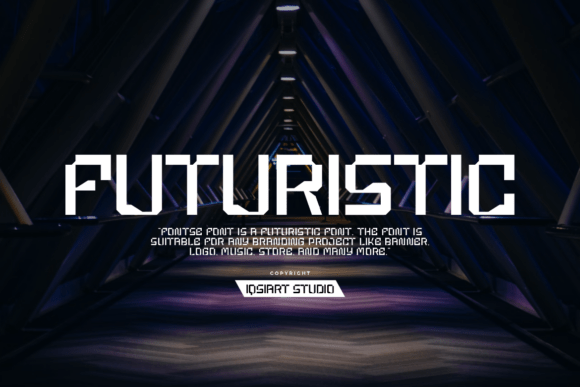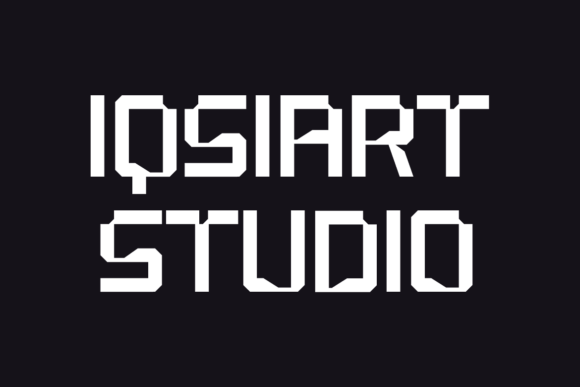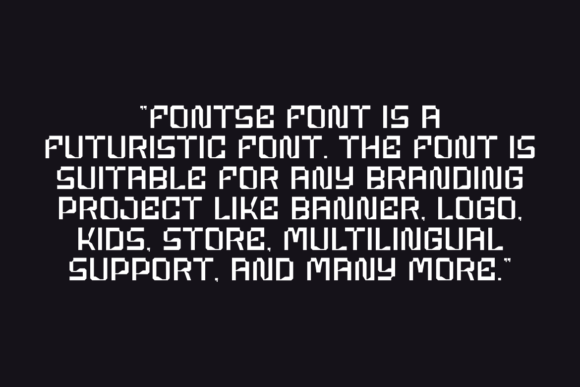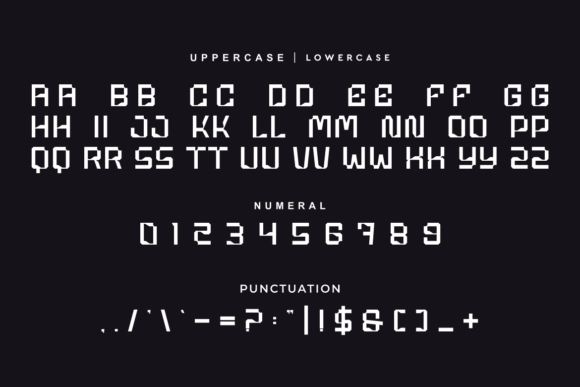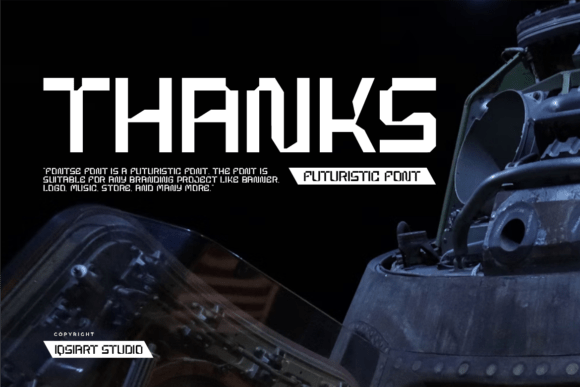
The Quirky Charm of Fontse Font: A Designer’s Delight
I still remember the design project that led me to discover Fontse Font. I was working on a whimsical branding campaign for a new coffee shop, and I was struggling to find the perfect font to capture their playful yet sophisticated vibe. That’s when I stumbled upon Fontse Font, and it instantly became my go-to choice. Its unique blend of quirky charm and elegance won me over, and I’ve been hooked ever since.
An Honest Review of Fontse Font
What I Love About Fontse Font ✨
- ✅ Unique and eye-catching design that’s perfect for making a statement
- ✅ Highly versatile and adaptable to various design contexts
- ✅ Beautifully crafted with attention to detail and a touch of whimsy
- ✅ Supports a wide range of languages and special characters
- ⚠️ Some users may find the font a bit too ornate or over-the-top for certain projects
- ⚠️ Limited availability of condensed or italic versions, which may limit its use in certain design scenarios
The Designer Inspiration Behind Fontse Font
Fontse Font was created by a talented designer who’s passionate about crafting unique and eye-catching typography. Inspired by a mix of traditional and modern design elements, Fontse Font is the result of hours of careful craftsmanship and attention to detail. Whether used for branding, packaging, or digital design, Fontse Font is sure to make a lasting impression.
| Font Name | Fontse Font Font |
| Author | IqsiartStudio |
| What makes Fontse Font so unique? | Fontse Font’s unique blend of quirky charm and elegance sets it apart from other fonts. |
| Is Fontse Font suitable for body text? | While Fontse Font is primarily designed for display purposes, it can be used for body text in certain design scenarios. However, it’s recommended to use a clear and readable font for longer blocks of text. |
| Does Fontse Font support special characters and languages? | Yes, Fontse Font supports a wide range of languages and special characters, making it a versatile choice for international design projects. |